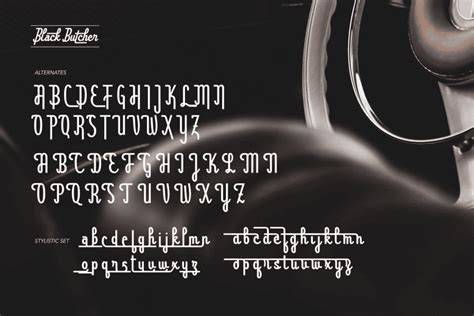
What Are Butcher Fonts?
It’s 2023 and the world of typography has evolved significantly since the 21st century. One of the most popular typefaces to emerge in recent years is the Butcher font. These fonts are characterized by their bold, edgy, and unique design elements. Butcher fonts are great for logos, headlines, and other text that needs to stand out from the crowd. They are also popular for print and digital design projects, as well as for web design.
History of Butcher Fonts
The Butcher font family has its roots in the 19th century. The original typeface was designed by German type designer, Friedrich Niedl. Niedl was inspired by the Gothic and Blackletter typefaces of the time. His typeface was designed to be used by butchers and pork butchers, hence the name. The font was widely popular throughout Europe, and it eventually made its way to the United States, where it gained even more popularity.
Features of Butcher Fonts
Butcher fonts are bold, edgy, and unique. The letters are thick and chunky, with sharp angles and edges. The letters often have a distressed or grungy look, giving them an overall grunge vibe. The typeface is great for logos and headlines, as it stands out from the crowd. It is also popular for print projects, web design, and other digital design projects.
Examples of Butcher Fonts
There are many Butcher fonts available today, with different styles and looks. Some of the most popular Butcher fonts include Blackletter, Butcher’s Wax, Butcher’s Grotesque, and Butcher’s Block. Each of these fonts has its own unique look, and they can be used in a variety of different ways. For example, Blackletter is great for logos and headlines, while Butcher’s Wax and Butcher’s Grotesque are great for print and digital design projects.
How to Use Butcher Fonts
Butcher fonts are typically used in logos, headlines, and other text that need to stand out from the crowd. They are also popular for print and digital design projects, as well as for web design. When using Butcher fonts, it is important to remember to keep the text legible. The letters should be easy to read and the typeface should be balanced with the other elements of the design. It is also important to consider the mood and tone of the design when using Butcher fonts.